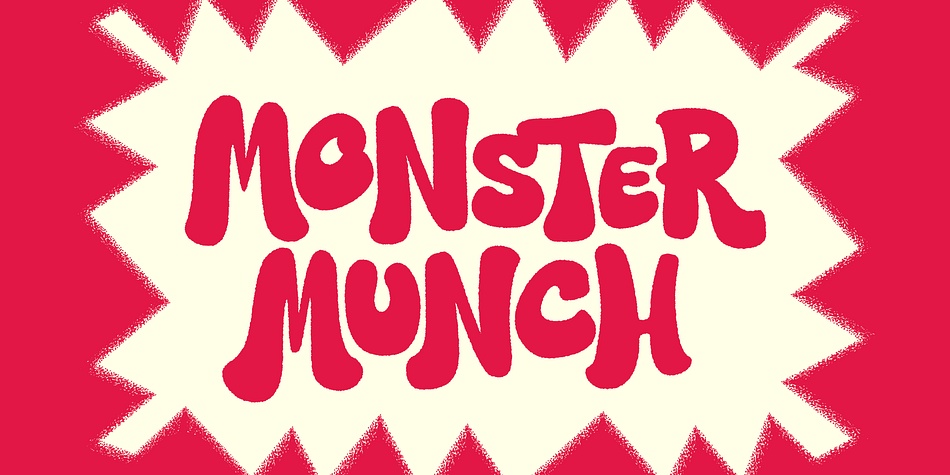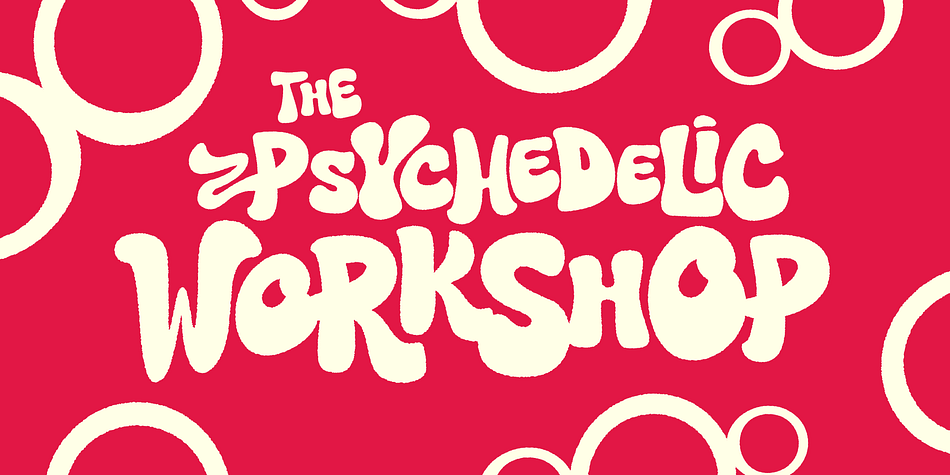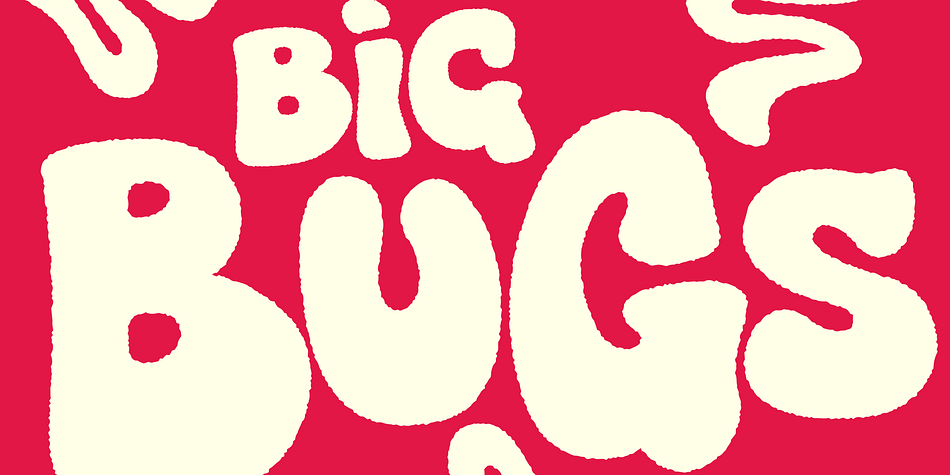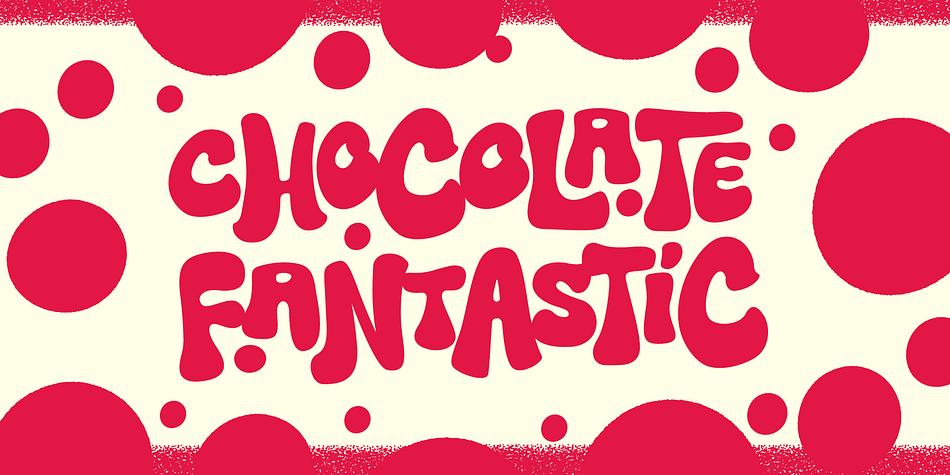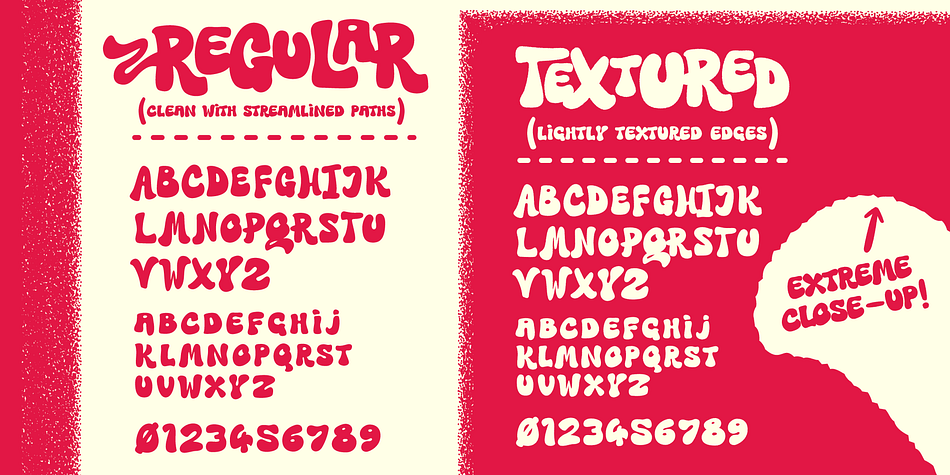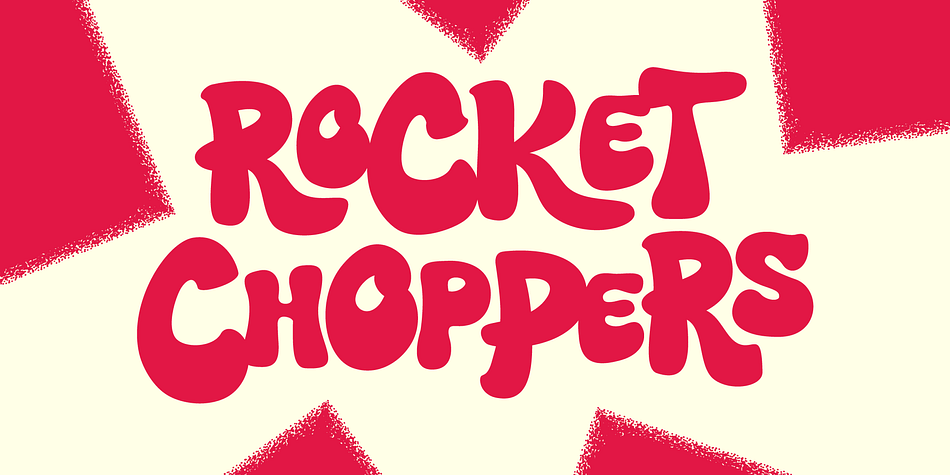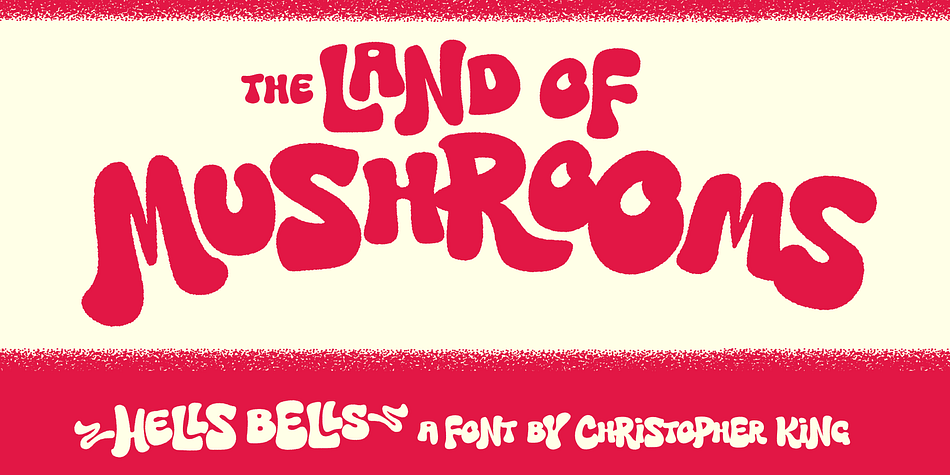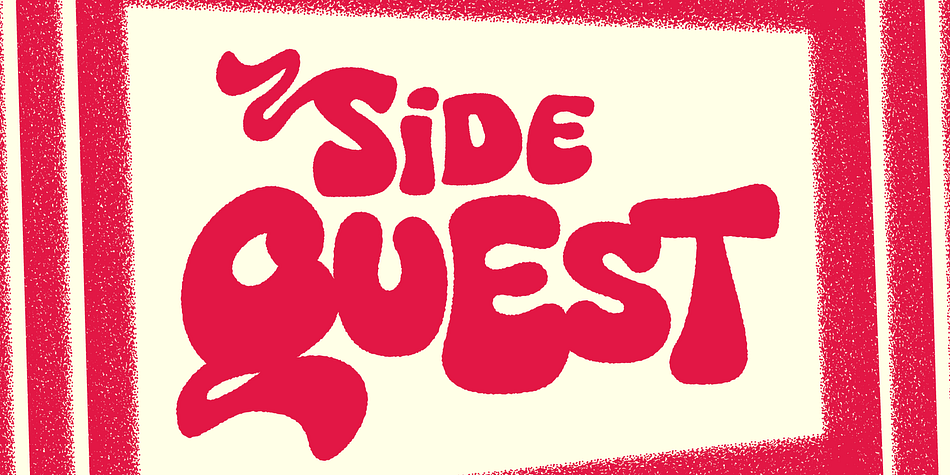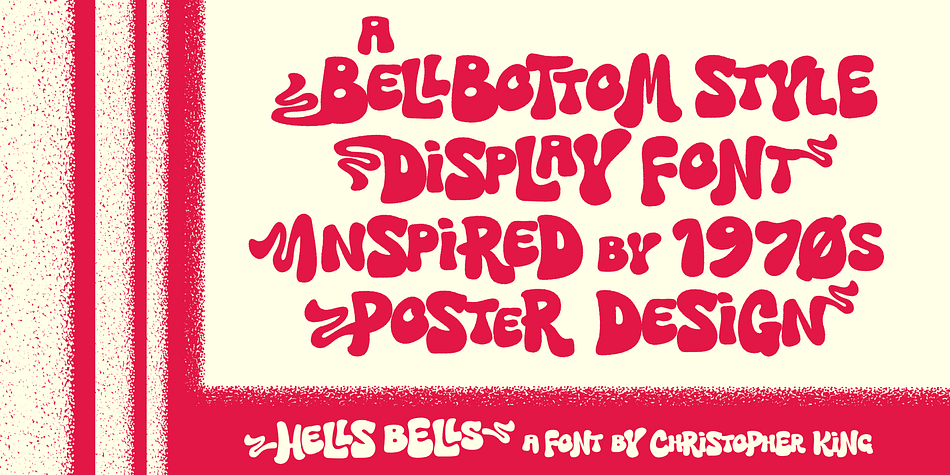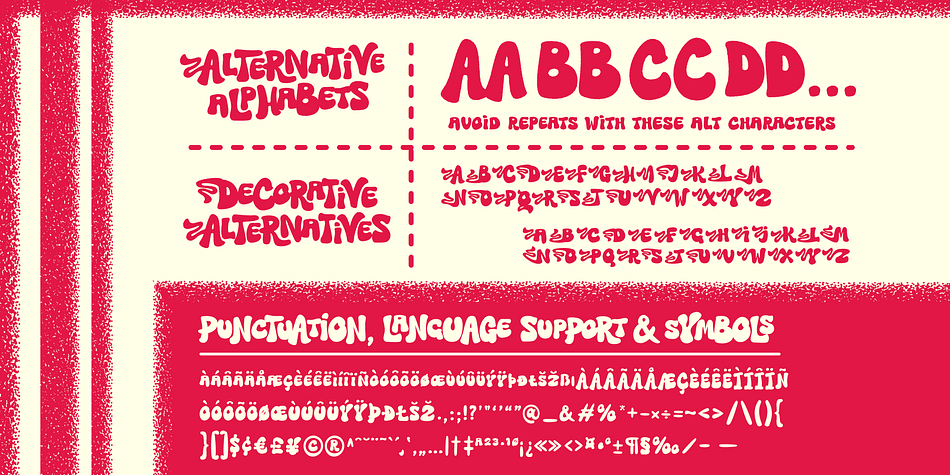
Hells Bells is a retro font family. This typeface has two styles and was published by Wingsart Studio.
Hells Bells
A Decorative Bell Bottom Style Font Inspired by 1970s Poster Design
The graphic design trends of the 1970s borrowed from the classical styles of Art Nouveau and Art Deco, adding a contemporary spin with its own psychedelic curves and strobing colours that spoke to an era of prog-rock, funk, and bell bottom flares. With Hells Bells, I’ve attempted to design a font that fits with this aesthetic, taking advantage of advanced Opentype features to create a lettering system of automatic interlocking type and decorative alternatives that would suit the most far out of festival posters.
While you’re free to use Hells Bells like a standard font, it’s only when you activate the OpenType features (sometimes referred to as Standard Ligatures or Stylistic Alternatives) that the type really comes alive. When you enter a combination of uppercase and lowercase characters (for example, R and o), you’ll notice the letters automatically combine into interlocking versions that give this design its unique look. Add to this a complete alternative alphabet (so no repeating oo’s and ee’s) plus a further set with decorative flourishes, and it combines to create a versatile font with an authentically custom look. Search for the OpenType options in your software to experiment with the results; commonly available in most software that handles type such as Photoshop, Illustrator, and Word.
Hells Bells is an all-caps design that offers a complete and unique set of uppercase and lowercase characters, along with numerals, punctuation, symbols, and language support. Two versions are provided; firstly, a clean, lightweight version for web and online applications, plus a textured version with an imperfect, ink-bleed-like edge for print-based projects. View the visuals for usage examples and enjoy!